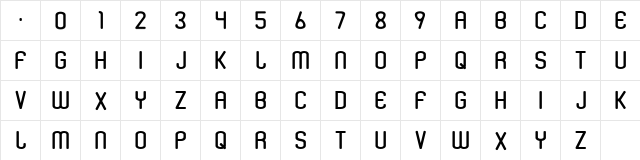
Adidas Unity Regular
Design Context for Adidas Unity Typeface
Adidas Unity offers clean, dependable letterforms without strong stylistic allegiance, making it a practical choice for designers who need flexibility.
Pro Tip: Pair Adidas Unity with a font of contrasting weight or personality to build a more expressive typographic hierarchy.